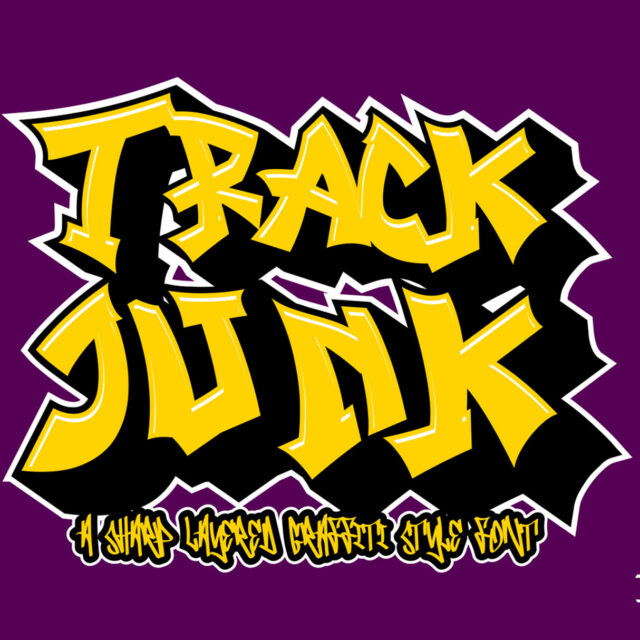
Track Junk
Track Junk is a bold, sharp-edged, layered graffiti font that exudes an intense street-style vibe.
Track Junk is a bold, sharp-edged, layered graffiti font that exudes an intense street-style vibe. With jagged and angular characters, this font gives off a rebellious energy perfect for urban and contemporary design projects. Each letter features strong, clean cuts that bring a raw, dynamic feeling to any visual. Track Junk offers multiple layers, such as solid, outline, and shadow styles, allowing for a customizable 3D effect that adds depth and dimension to your artwork.
This font is designed for those who want to stand out with bold lettering that captures attention. Ideal for posters, streetwear branding, music album covers, or any graffiti-inspired creative project, Track Junk embraces the essence of urban culture. Whether used for digital or print media, its aggressive and eye-catching design makes it perfect for projects that need a strong, gritty, and energetic visual impact.